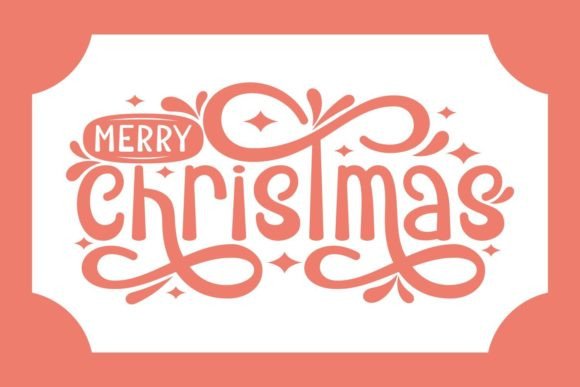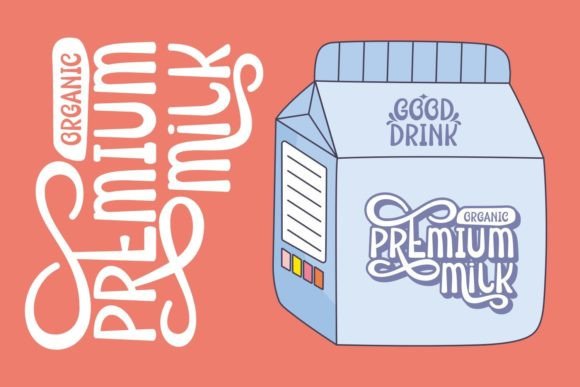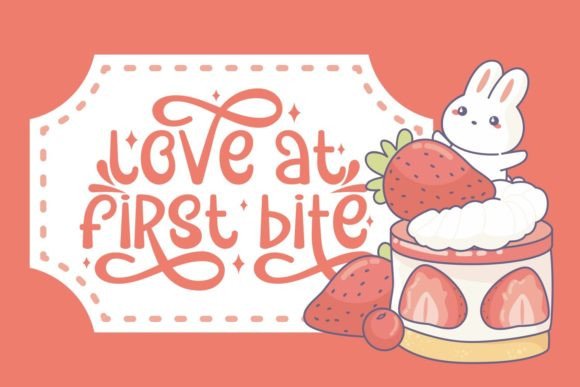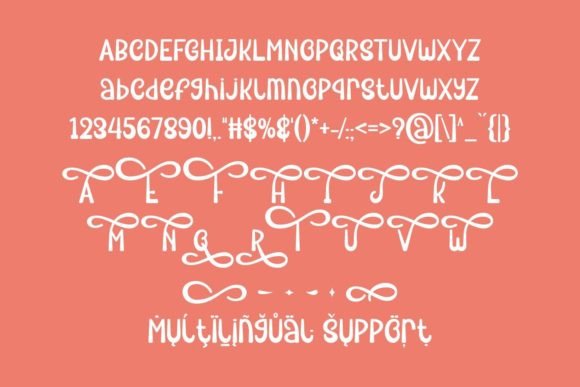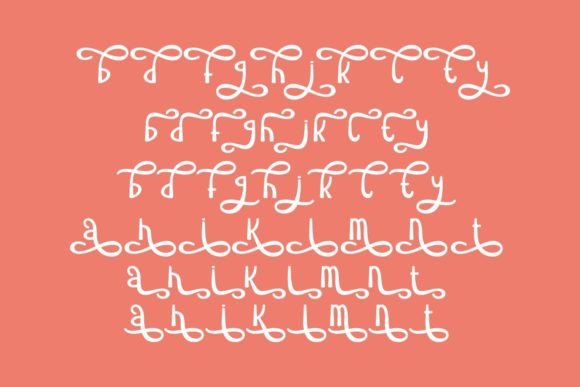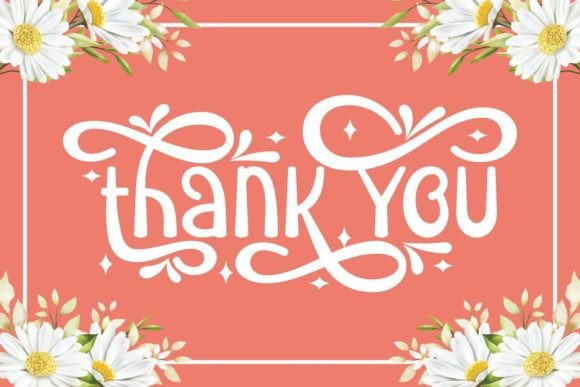
Hartanti Font: A Delicate Display Font for Whimsical Designs
Are you a designer or crafter looking for a font that can add a touch of magic to your creations? Look no further than Hartanti Font, a lovely and delicate display font that is sure to transport your designs to a whimsical world. In this article, we’ll take a closer look at Hartanti Font, its features, and how it can elevate your designs.
What is Hartanti Font?
Hartanti Font is a modern yet whimsical display font that is perfect for designers and crafters who want to add a touch of elegance and sophistication to their creations. This font is designed to be versatile and can be used for a variety of projects, from branding and advertising to packaging and digital media.
Key Features of Hartanti Font
So, what makes Hartanti Font so special? Here are some of its key features:
- Delicate and Lovely Design: Hartanti Font has a delicate and lovely design that is sure to capture the attention of your audience. Its modern yet whimsical style makes it perfect for designs that require a touch of elegance and sophistication.
- PUA Encoded: Hartanti Font is PUA encoded, which means that you can access all the glyphs and ligatures with ease. This makes it easy to use and customize the font to suit your design needs.
- Magical and Whimsical Style: Hartanti Font has a magical and whimsical style that is sure to immerse your designs into a world of fantasy and wonder. Whether you’re designing for a children’s brand or a luxury brand, this font is sure to add a touch of magic to your creations.
How to Use Hartanti Font
Using Hartanti Font is easy and straightforward. Here are some tips on how to get the most out of this beautiful font:
- Pair it with Other Fonts: Hartanti Font can be paired with other fonts to create a unique and interesting design. Try pairing it with a bold font for a striking contrast or with a script font for a more elegant look.
- Use it for Headings and Titles: Hartanti Font is perfect for headings and titles, where its delicate and lovely design can really shine. Use it to add a touch of elegance and sophistication to your designs.
- Customize it to Suit Your Needs: With PUA encoding, you can access all the glyphs and ligatures of Hartanti Font and customize it to suit your design needs. Use it to create a unique and personalized design that stands out from the crowd.
Benefits of Using Hartanti Font
So, what are the benefits of using Hartanti Font? Here are just a few:
- Adds a Touch of Elegance and Sophistication: Hartanti Font adds a touch of elegance and sophistication to your designs, making it perfect for luxury brands and high-end designs.
- Perfect for Whimsical Designs: Hartanti Font is perfect for whimsical designs that require a touch of magic and fantasy. Use it to create designs that are playful, fun, and imaginative.
- Easy to Use and Customize: With PUA encoding, Hartanti Font is easy to use and customize, making it perfect for designers and crafters of all levels.
In conclusion, Hartanti Font is a lovely and delicate display font that is sure to add a touch of magic to your designs. With its modern yet whimsical style, PUA encoding, and ease of use, it’s perfect for designers and crafters who want to create elegant and sophisticated designs. Whether you’re designing for a luxury brand or a children’s brand, Hartanti Font is sure to immerse your designs into a world of fantasy and wonder.